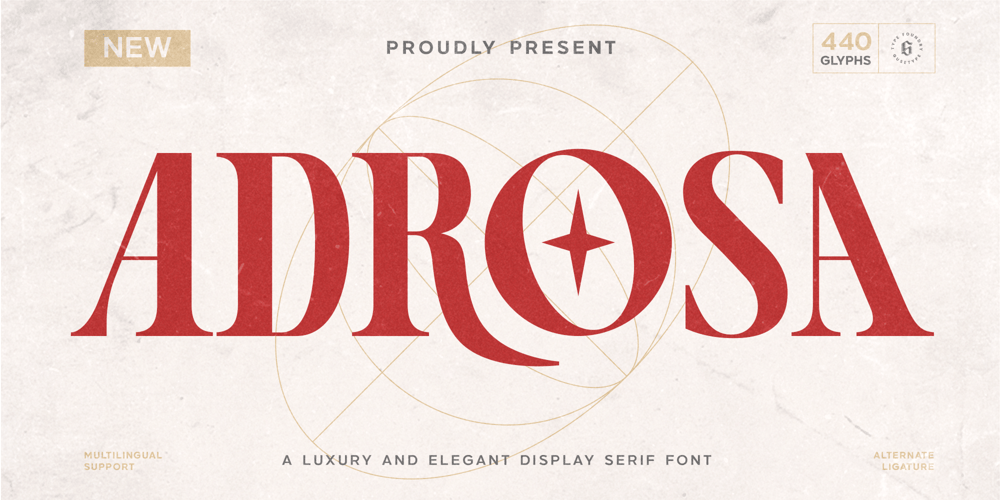
Adrosa
Adrosa font
Adrosa Font Family was designed by Guntur Septyan and published by GuseType. Adrosa contains 1 styles and family package options. IntroducingAdrosa is a luxury and elegant display serif font. What is this font use for? of course this font can be use in various project like a posters headlines, logotype, magazines headlines, brochure and much more. Adrosa font could make your project more aesthetic and beautiful in the same place, because this font has ligature and alternative glyphs features.This font has other features too like standard glyphs, numeral, punctuation marks, symbol, multilingual support.Thanks for coming! I hope you enjoy it.